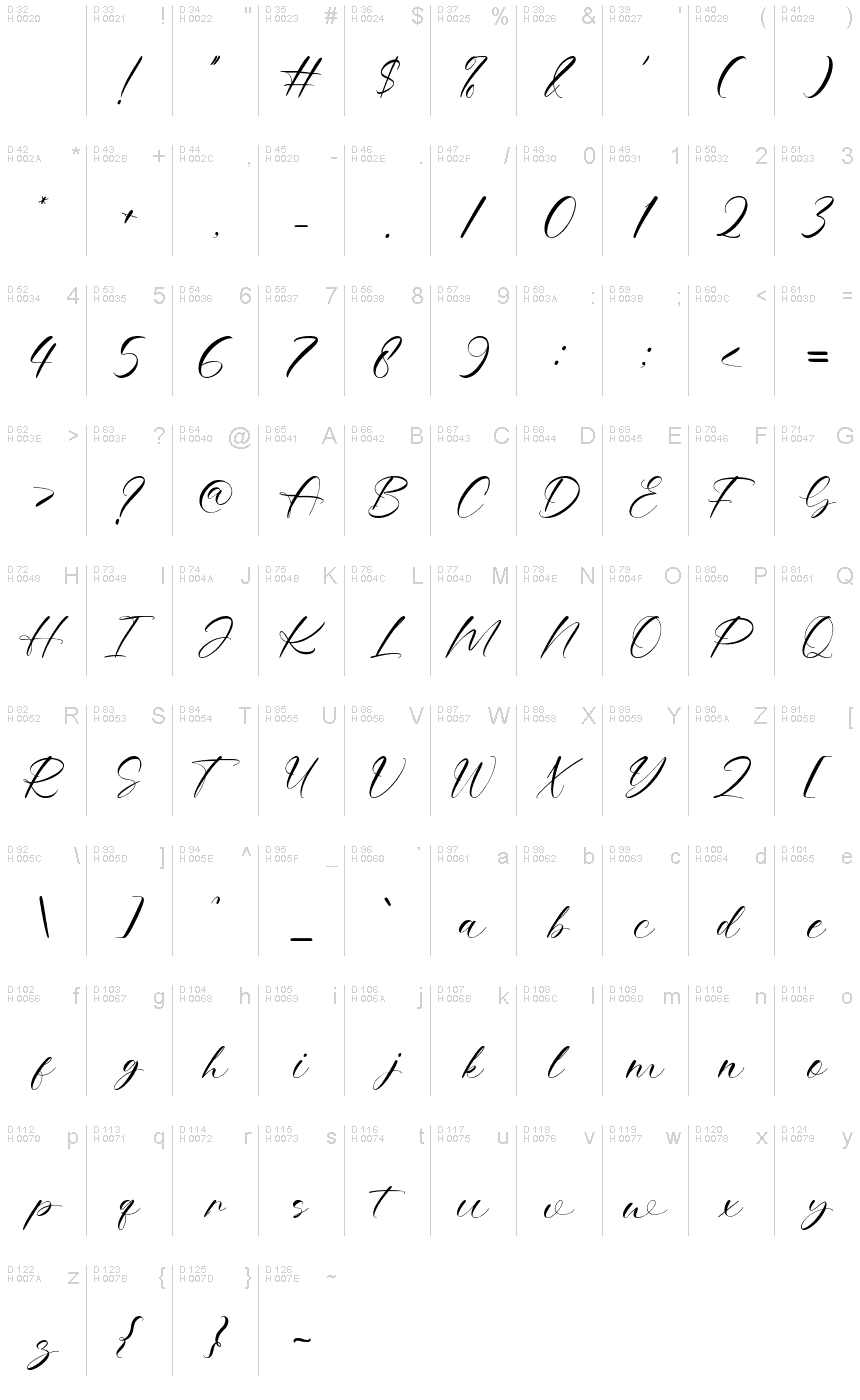
Royalina
Royalina, a captivating calligraphy font by Salamahtype.com, exudes elegance and sophistication with its light weight.
Its graceful curves and intricate details make it perfect for wedding invitations, romantic novels, and luxury branding. The delicate strokes of Royalina effortlessly bring a touch of class to any project, whether it's an upscale restaurant menu or a high-end fashion magazine.
Let this enchanting font captivate your audience and elevate your designs to new heights of beauty and refinement.